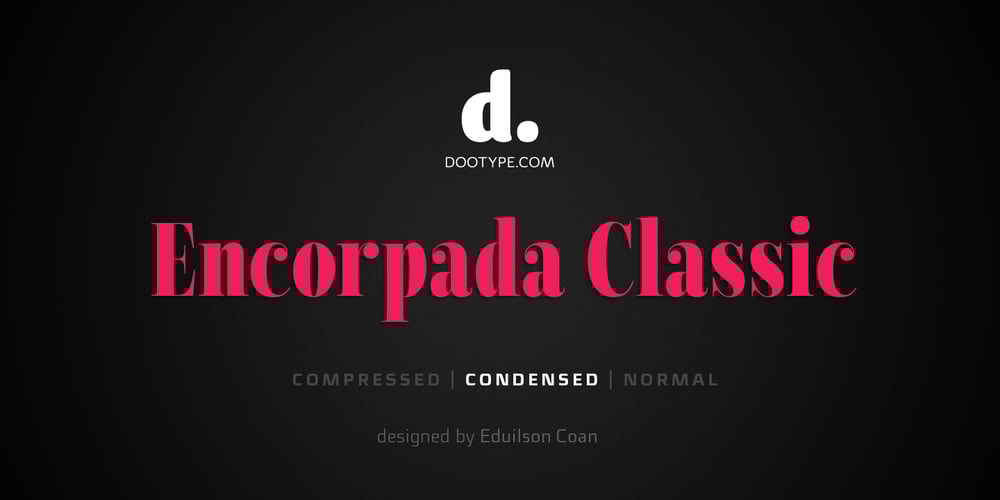
Encorpada Classic Condensed Font Family was designed by Eduilson Wessler Coan and published by dooType. Encorpada Classic Condensed contains 10 styles and family package options. Encorpada Classic, designed by Eduilson Coan, brings the best features of the Didone genre, but with a 21st century look and feel. With smooth details Encorpada Classic is an elegant choice for your type library. The family has three widths – compressed, condensed & normal, support for more than 40 languages and opentype features.